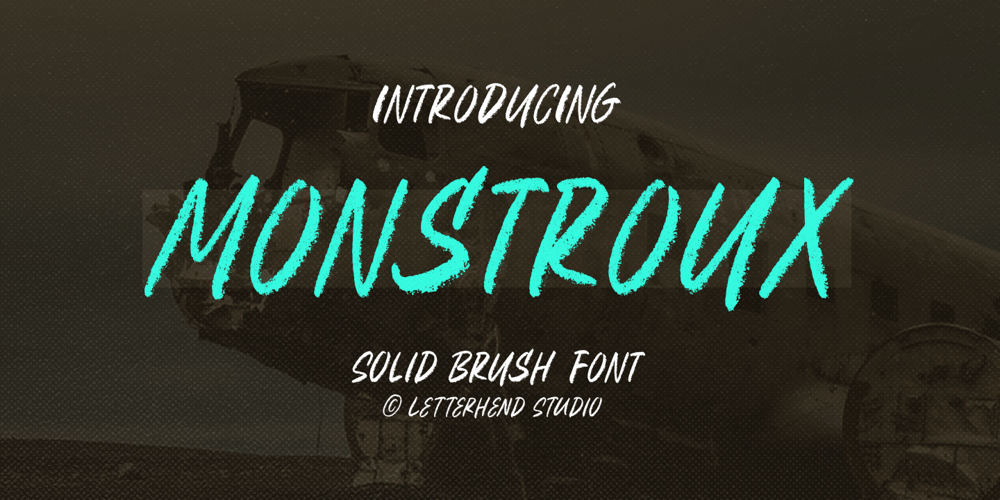
Monstroux Font Family was designed by Hendry Juanda and published by Letterhend. Monstroux contains 1 styles and family package options. Monstroux is a brush typeface. This type of font perfectly made to be applied especially in headlines which is need a standout font, and the other various formal forms such as invitations, labels, logos, magazines, books, greeting / wedding cards, packaging, fashion, make up, stationery, novels, labels or any type of advertising purpose.Features : Solid version numbers and punctuation multilingual PUA encoded We highly recommend using a program that supports OpenType features and Glyphs panels like many of Adobe apps and Corel Draw, so you can see and access all Glyph variations.